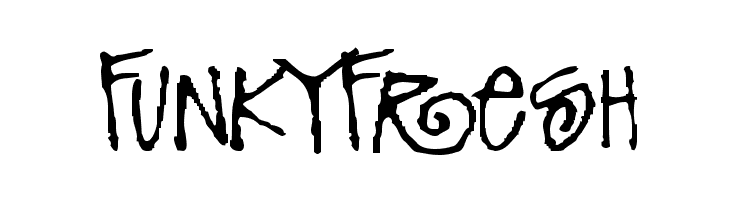
( Fonts by Jacob Fisher - www.pizzadude.dk )
A playful, rugged font with a hand-carved, stone-like appearance.
A playful, stone-carved style font with bold outlines and rugged texture.
( Fonts by olivetype )
A playful, bold font with rounded edges and a hand-drawn style.
( Fonts by Airotype Design )
A playful and whimsical font with quirky, irregular letterforms.
A bold, playful font with wavy, hand-drawn letterforms.
( Fonts by Prioritype Co )
A bold, expressive brush-style font with dynamic, hand-painted strokes.
( Fonts by Prioritype Co )
A bold, playful font with a retro, psychedelic vibe.
A bold, pixelated font with a retro digital aesthetic.
( Fonts by Lettersweet Studio )
A bold, playful font with exaggerated, whimsical letterforms.